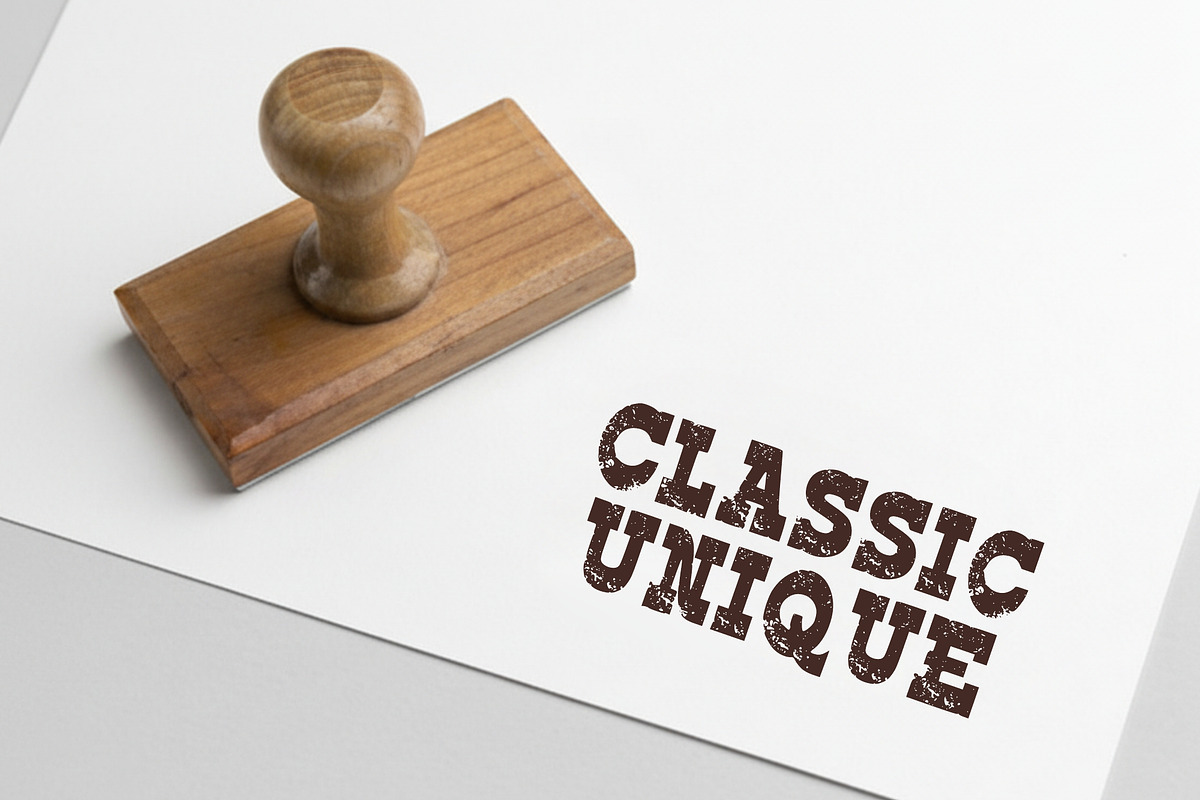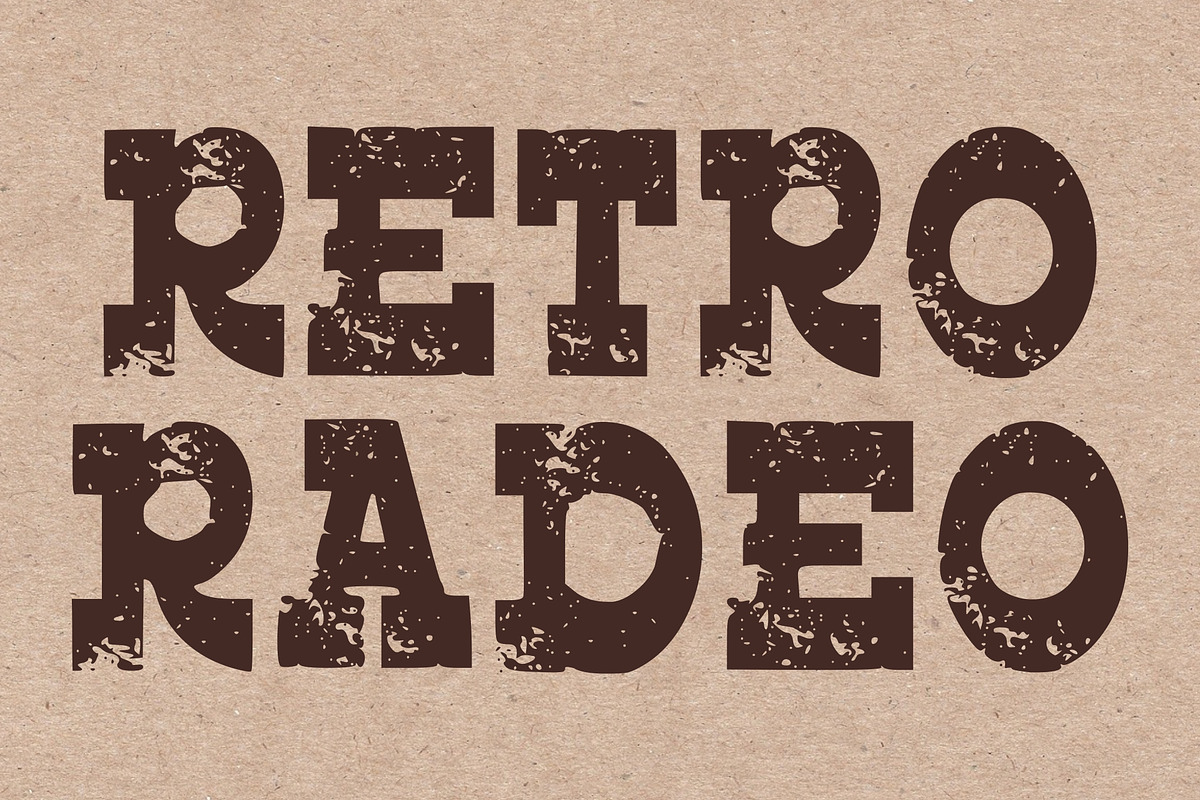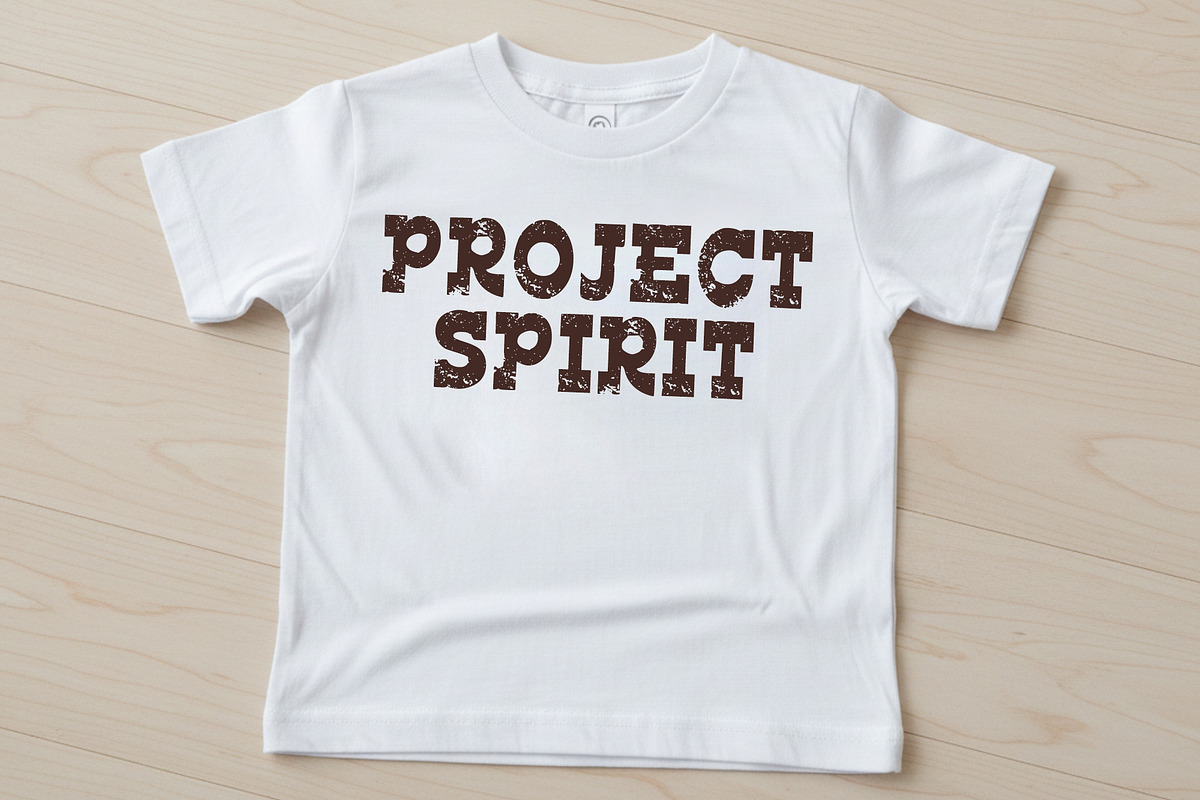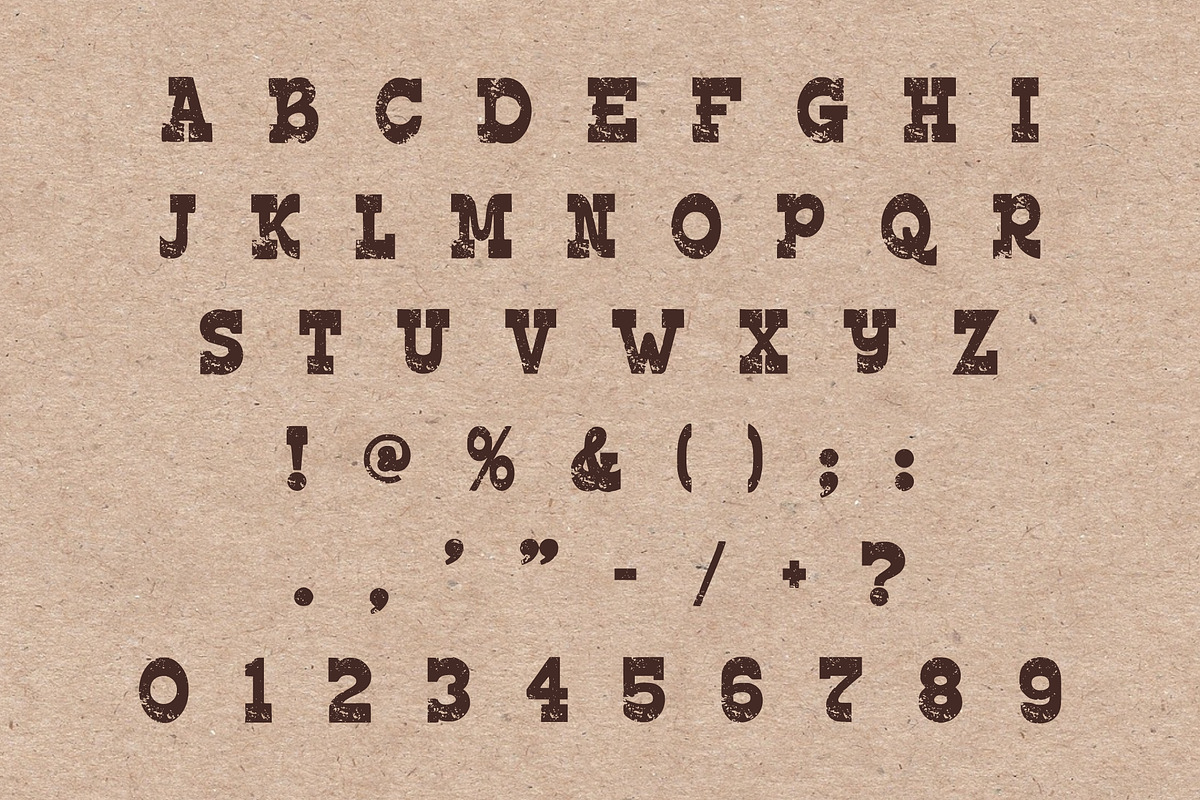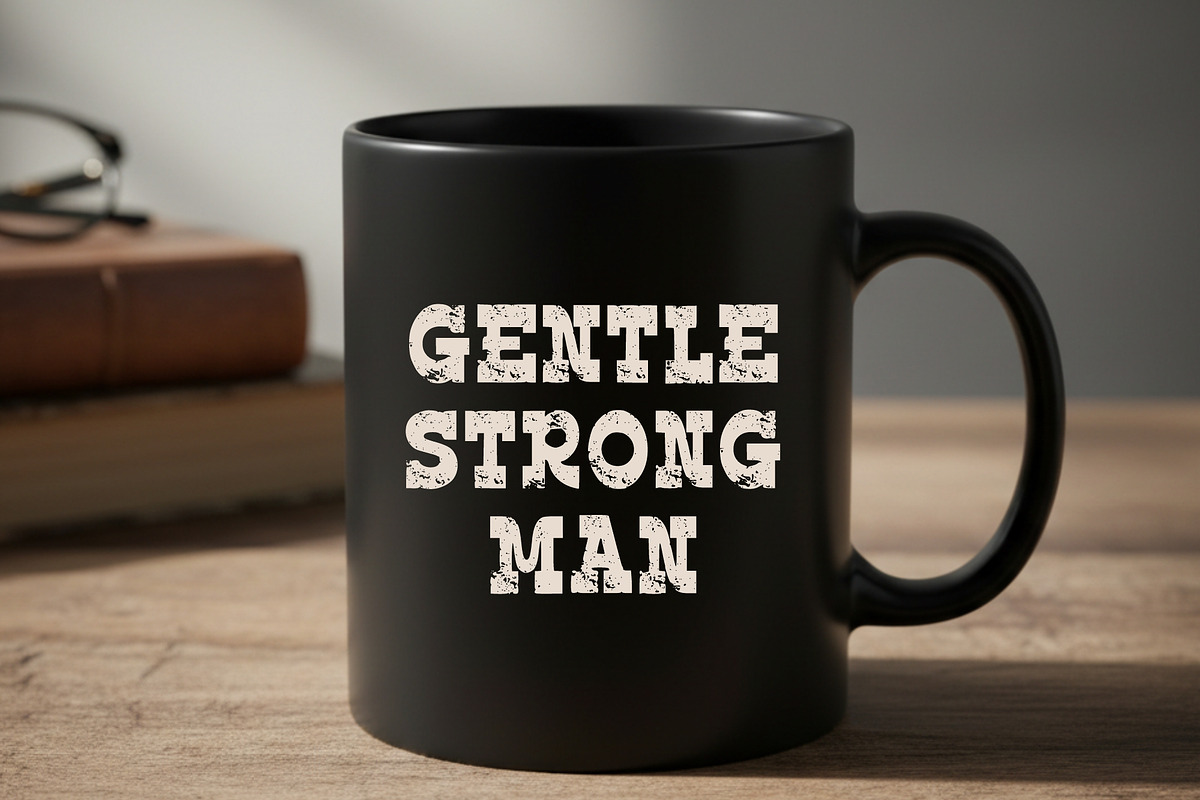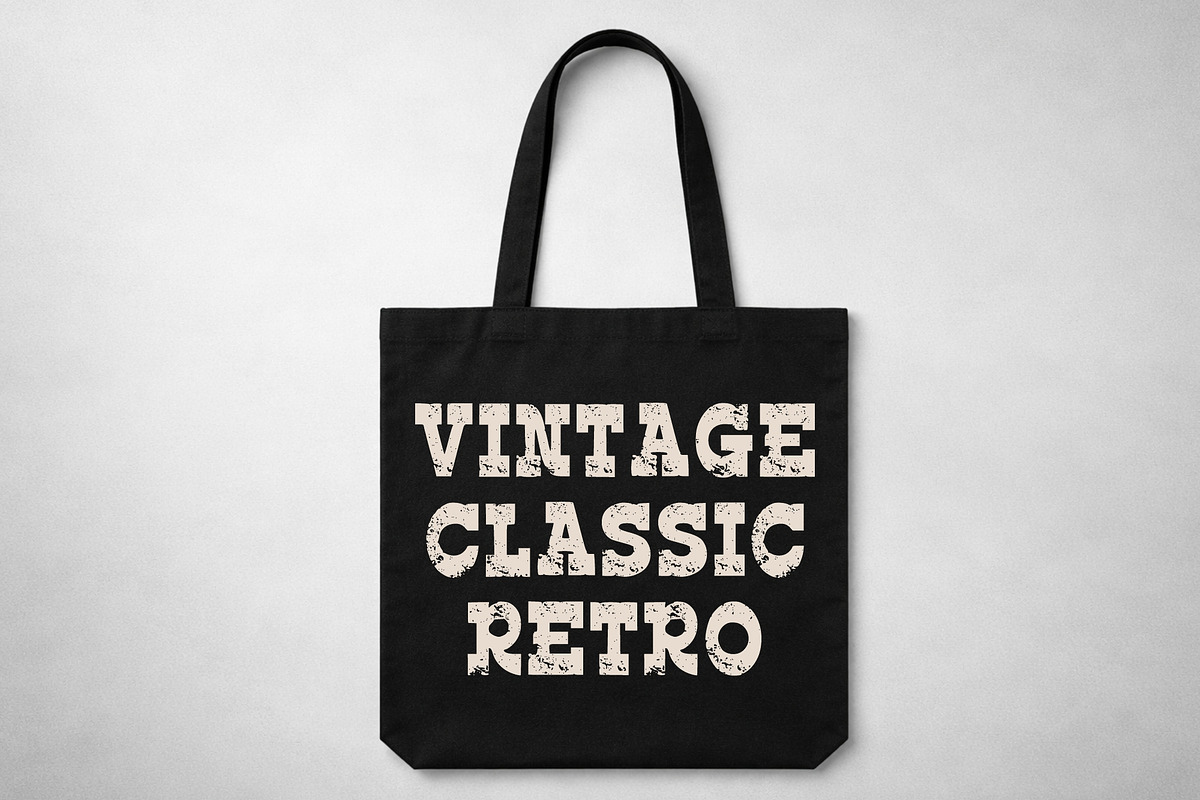
Retro Radeo Vintage Western
Retro Radeo is a bold vintage display font inspired by classic western typography and rugged cowboy aesthetics. Featuring a strong slab-serif structure combined with a distressed, weathered texture, this font brings an authentic retro feel to any design.
Perfect for branding, logos, posters, t-shirt designs, packaging, signage, and rustic-themed projects, Retro Radeo delivers a powerful and nostalgic visual impact.
Add a touch of wild west character and timeless charm to your creative work with this unique and eye-catching typeface.
Uppercase letters
Distressed / grunge texture
Bold slab serif style
Vintage western aesthetic
Strong and impactful display look